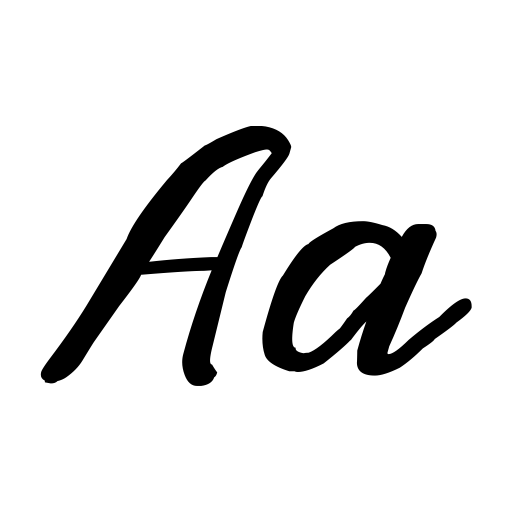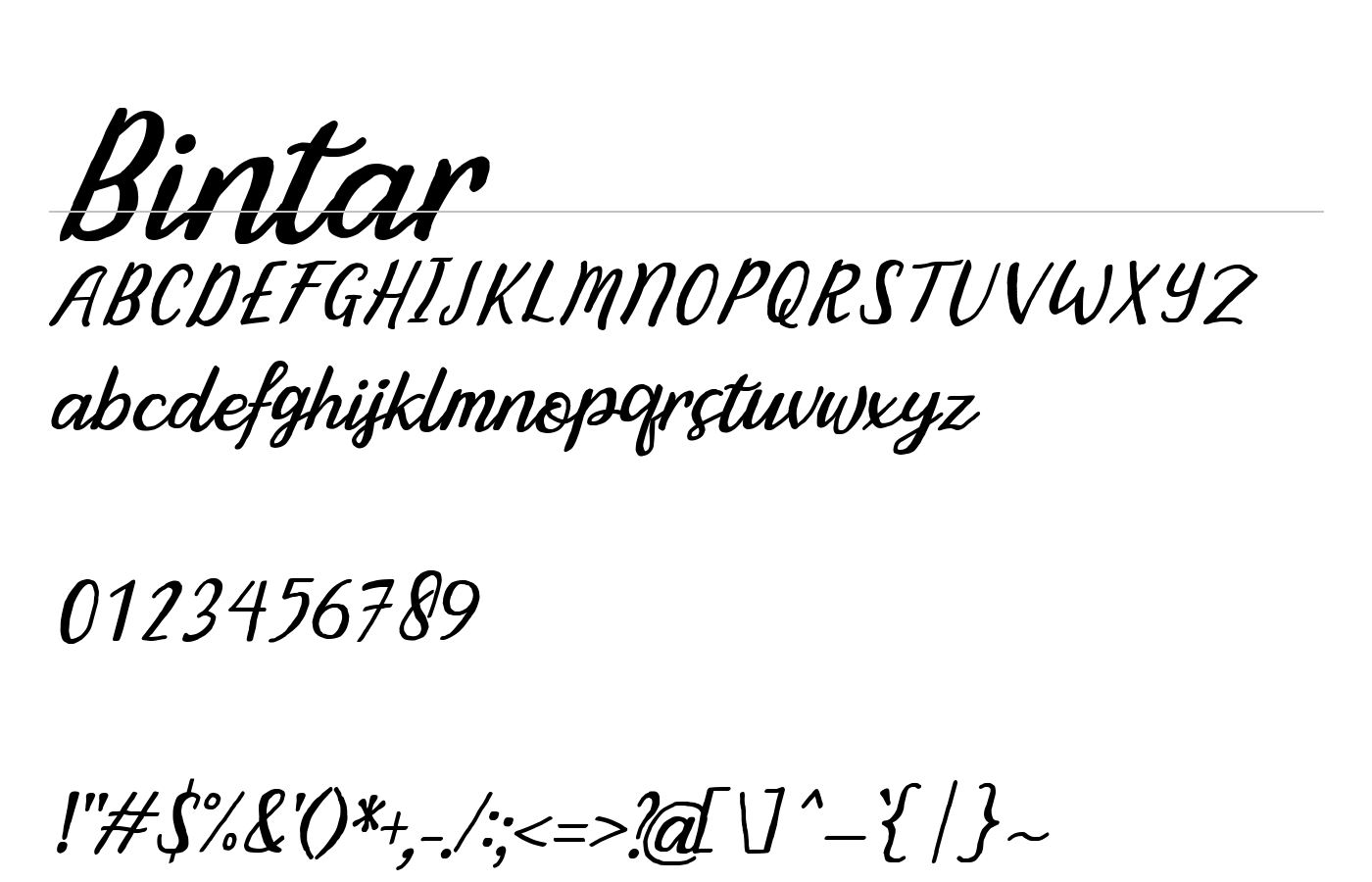
Bintar is a lively, handwritten script font with a casual yet elegant feel, featuring smooth, slightly slanted letterforms that convey a personal and approachable touch. Its moderate weight and medium contrast strokes make it versatile for creative projects, branding, and invitations where a warm, friendly atmosphere is desired. This font works well for logos, headlines, and packaging that aim to connect with viewers on a charming, human level.
Bintar Font
About Bintar Font
| Font family | Bintar Font |
| Designer | Andrian Dehasta, Situjuh Nazara |